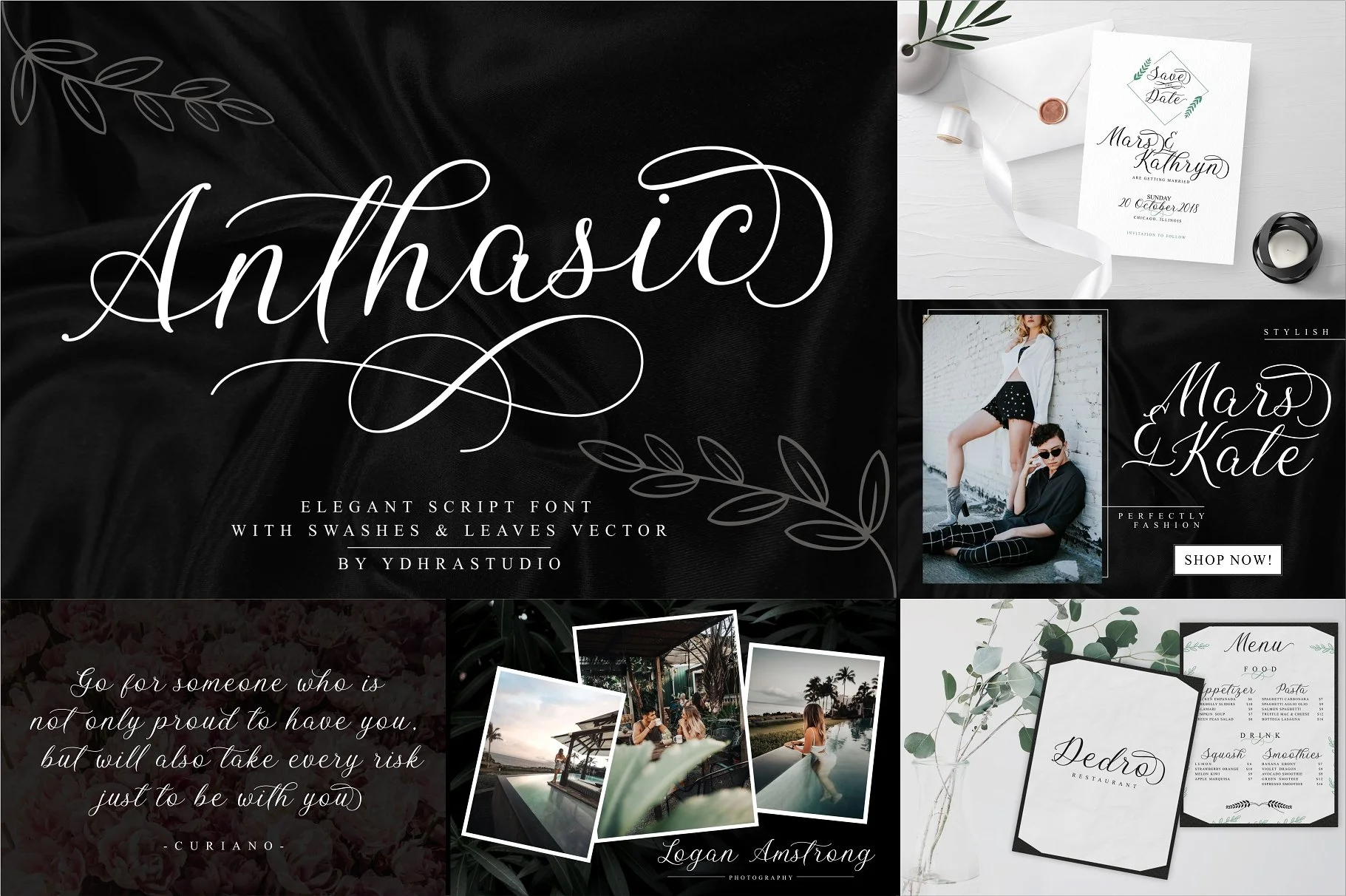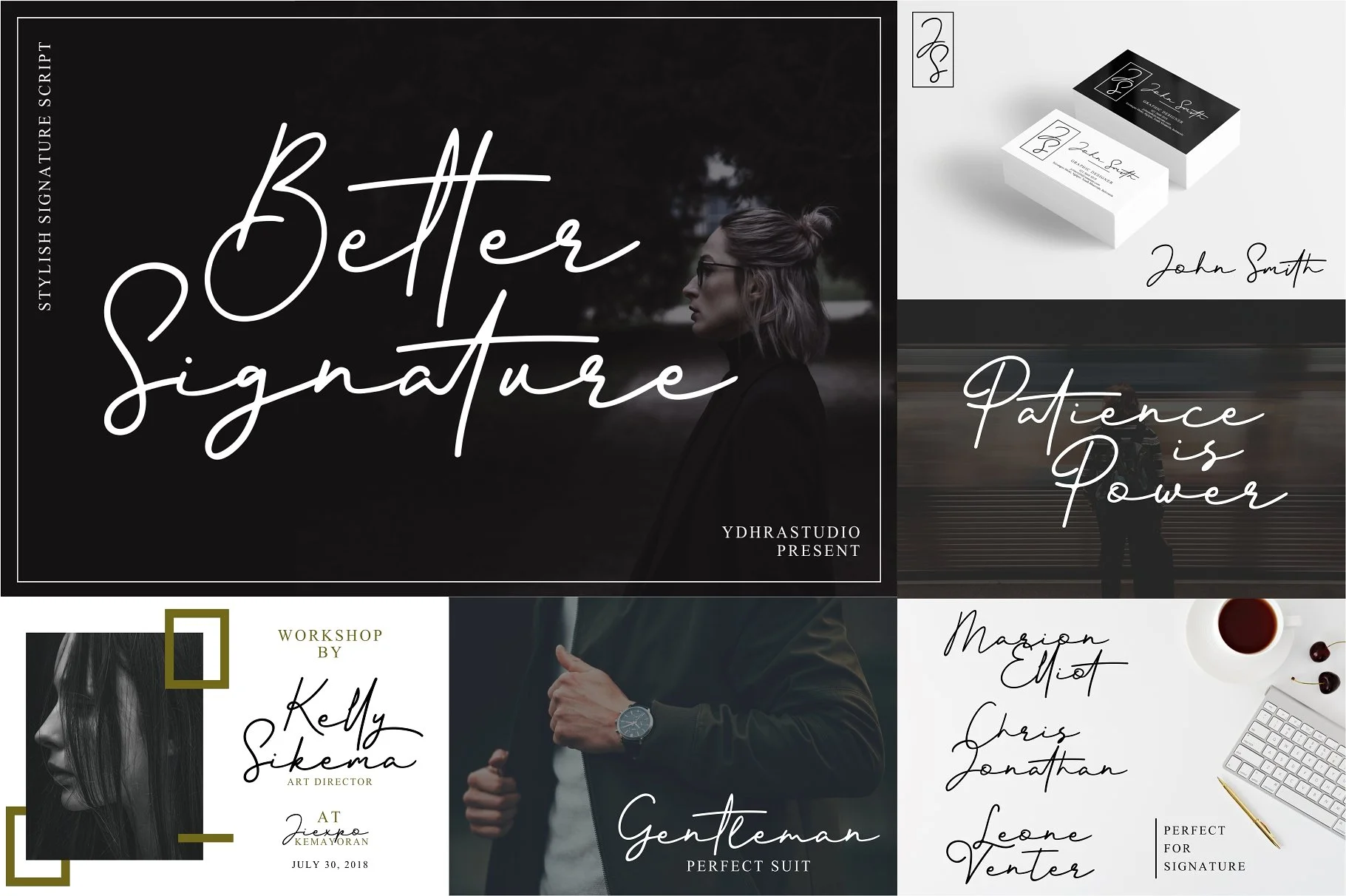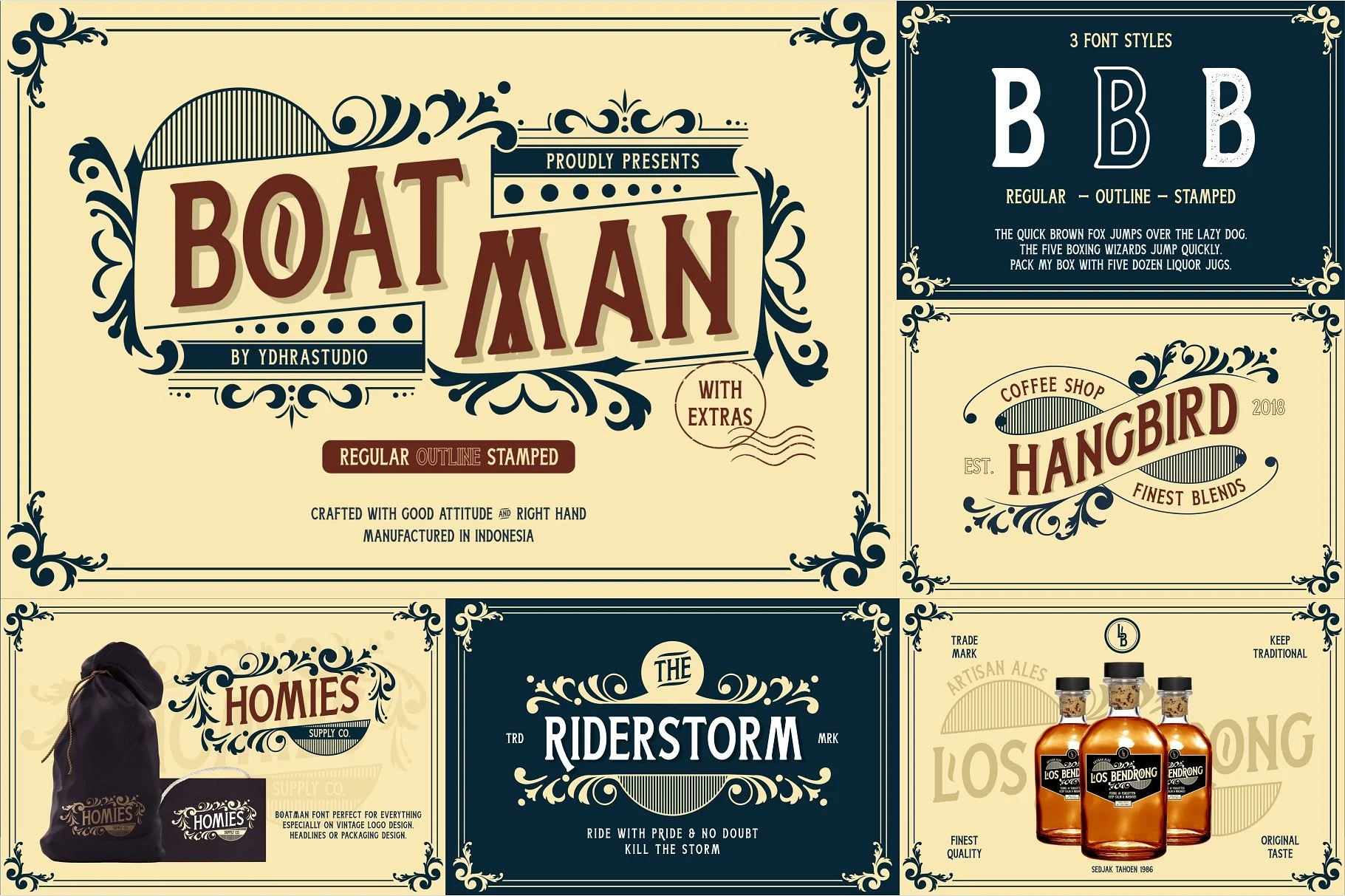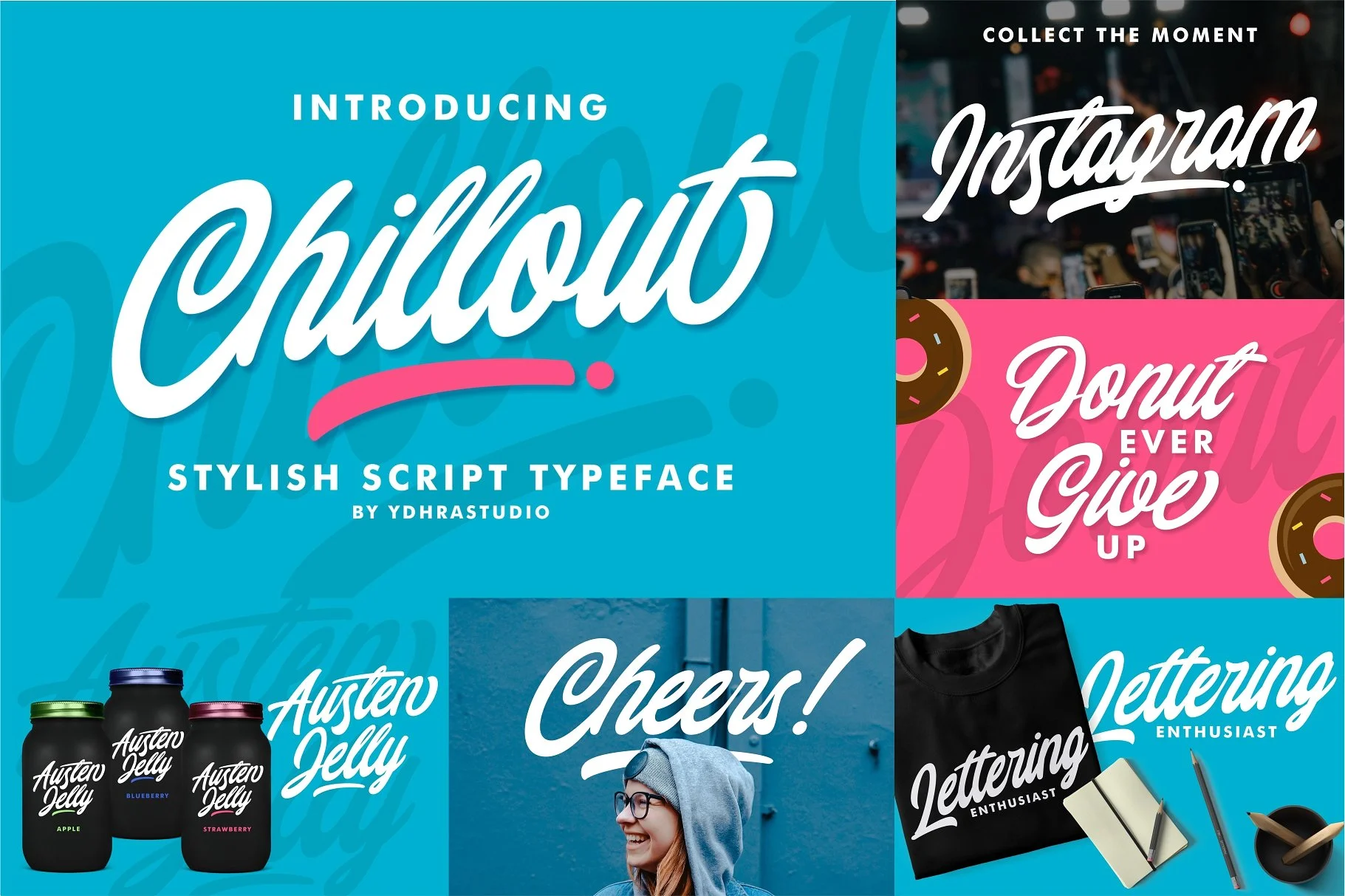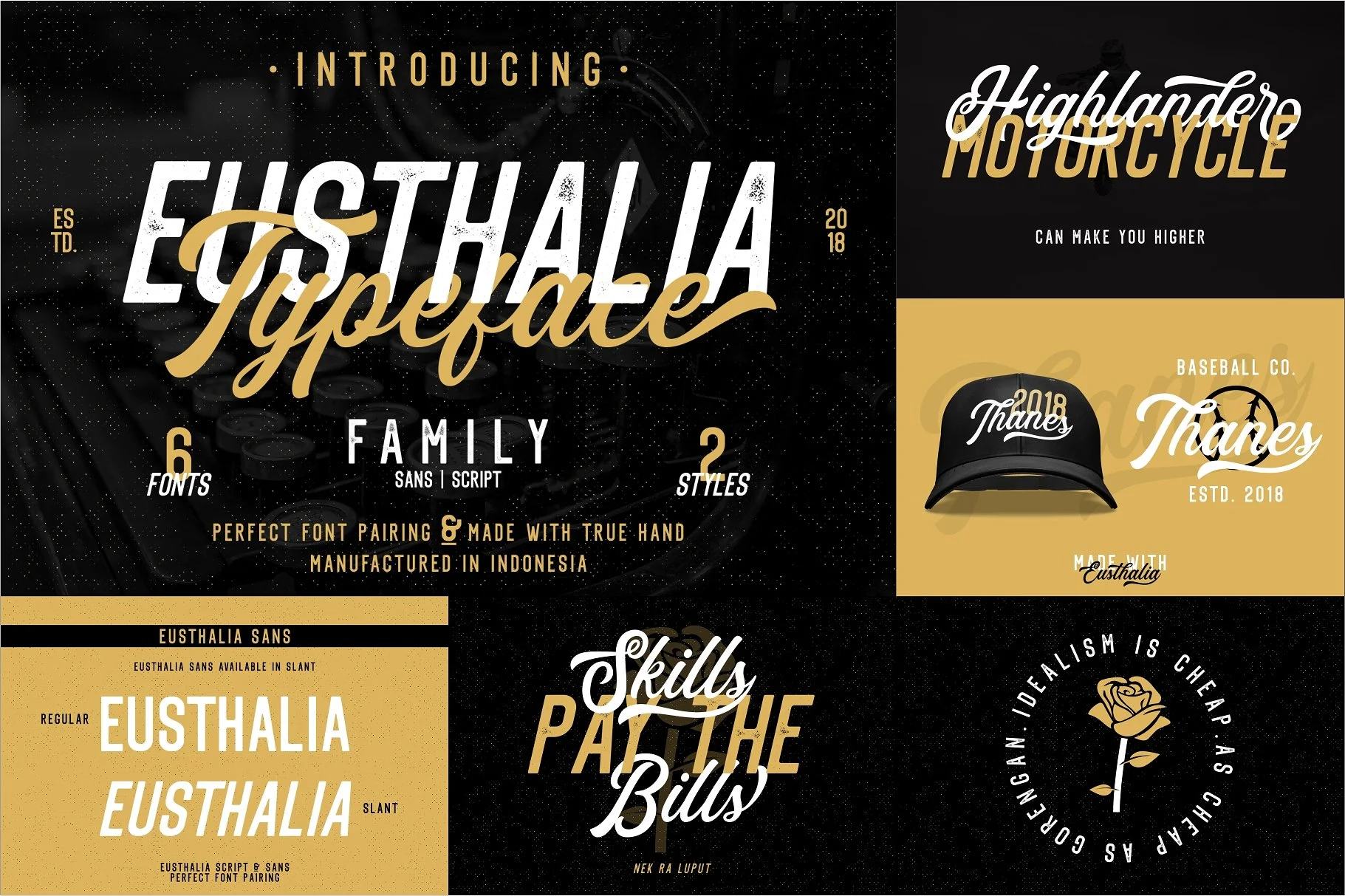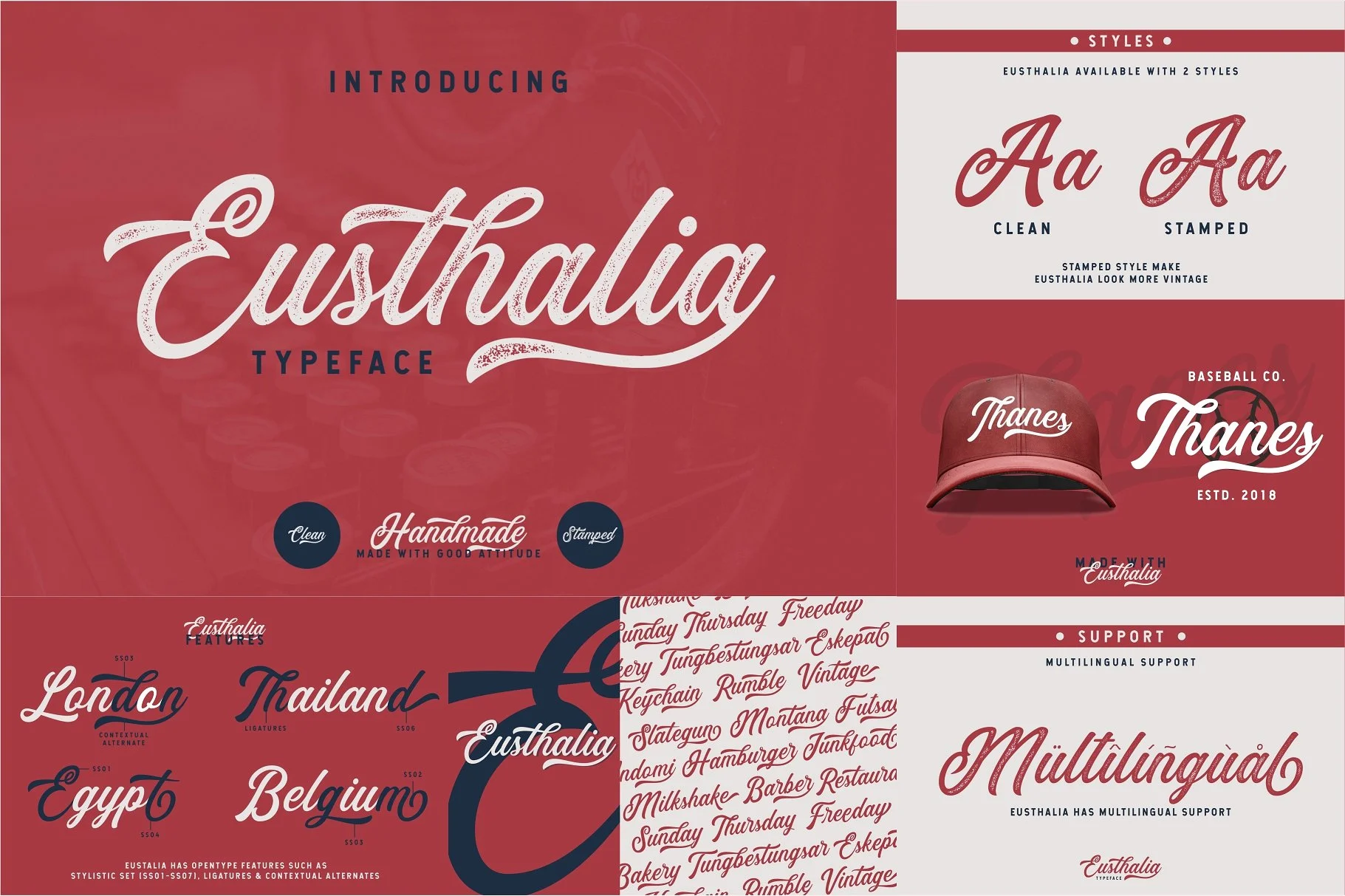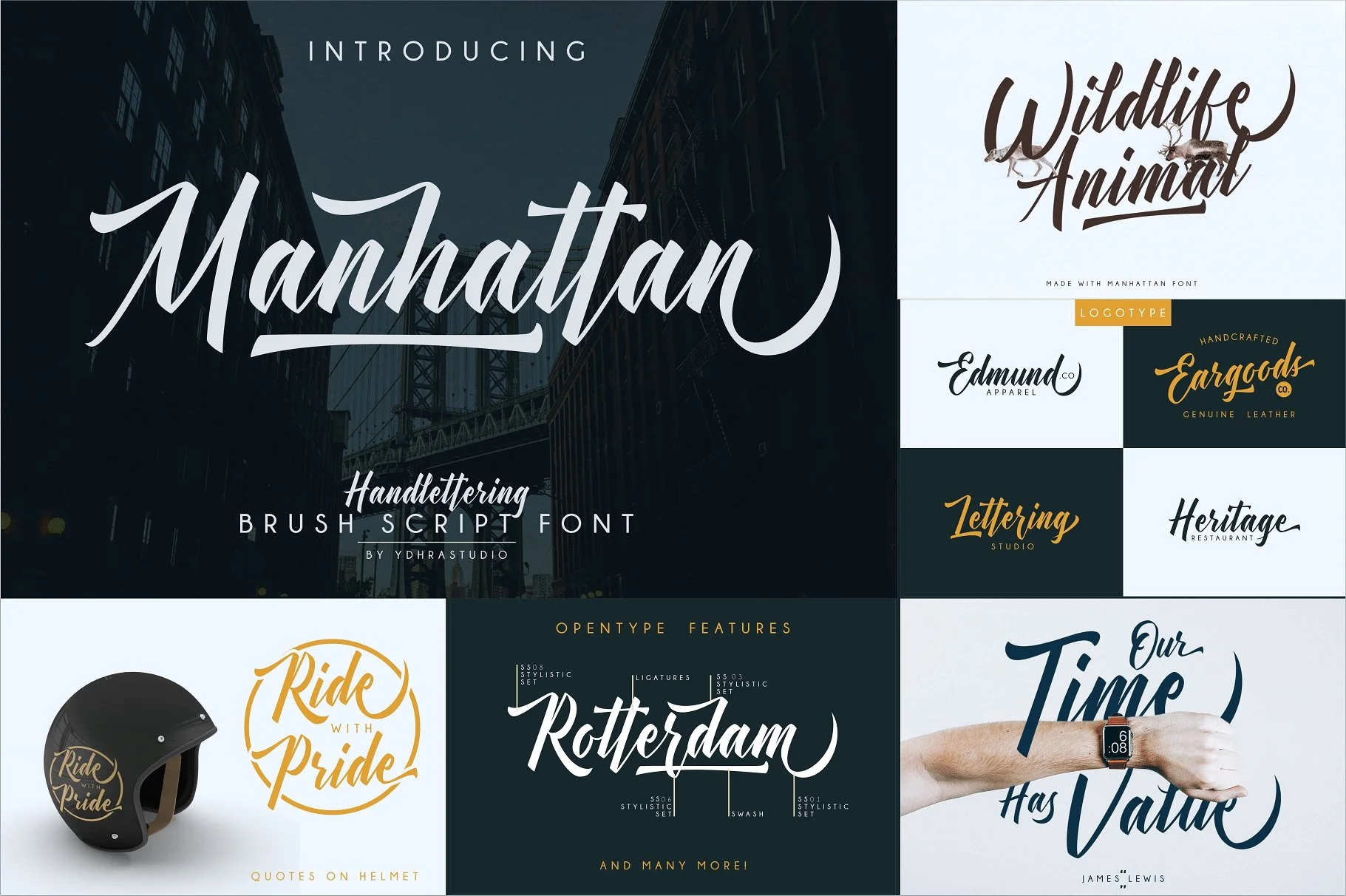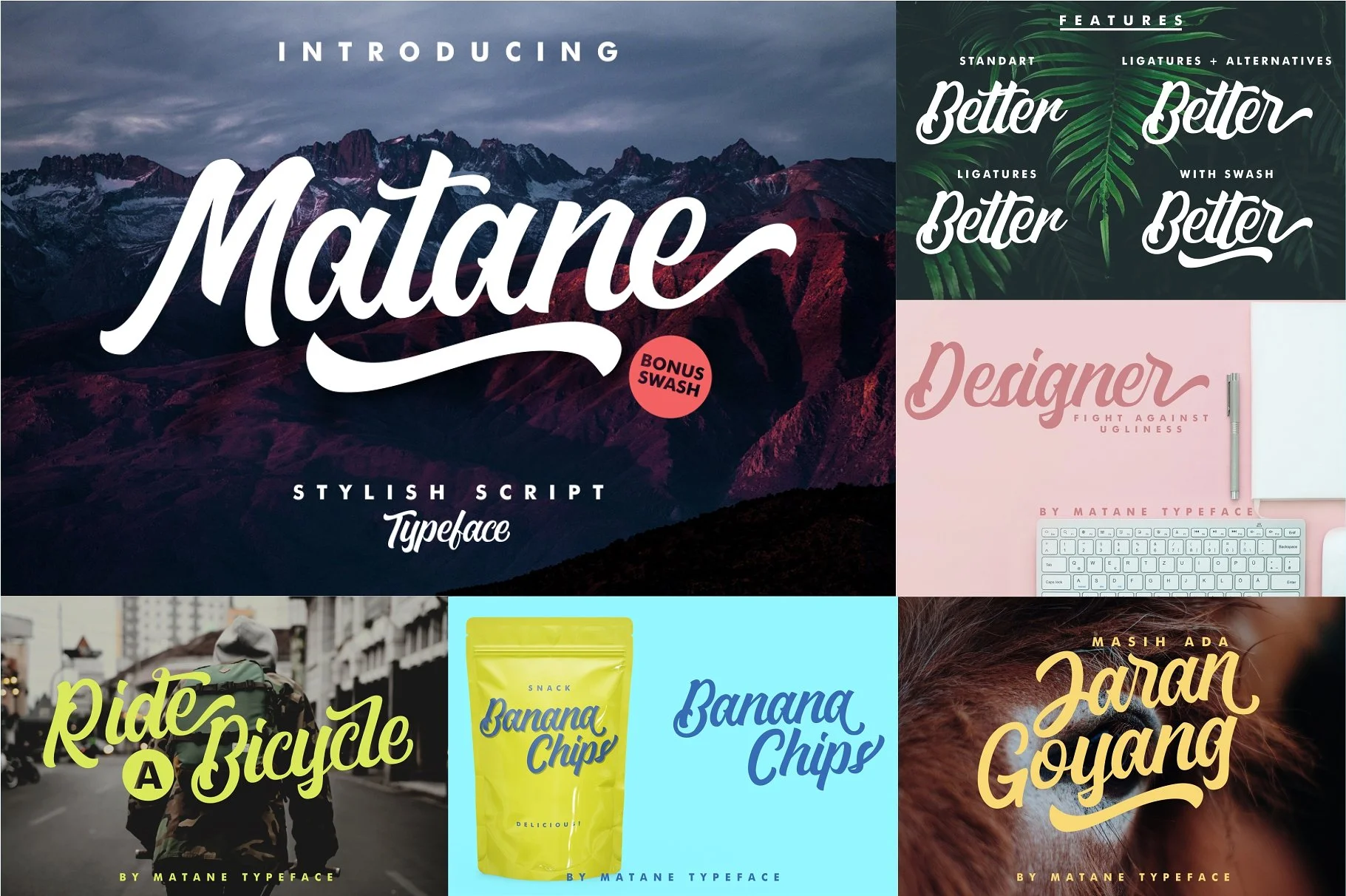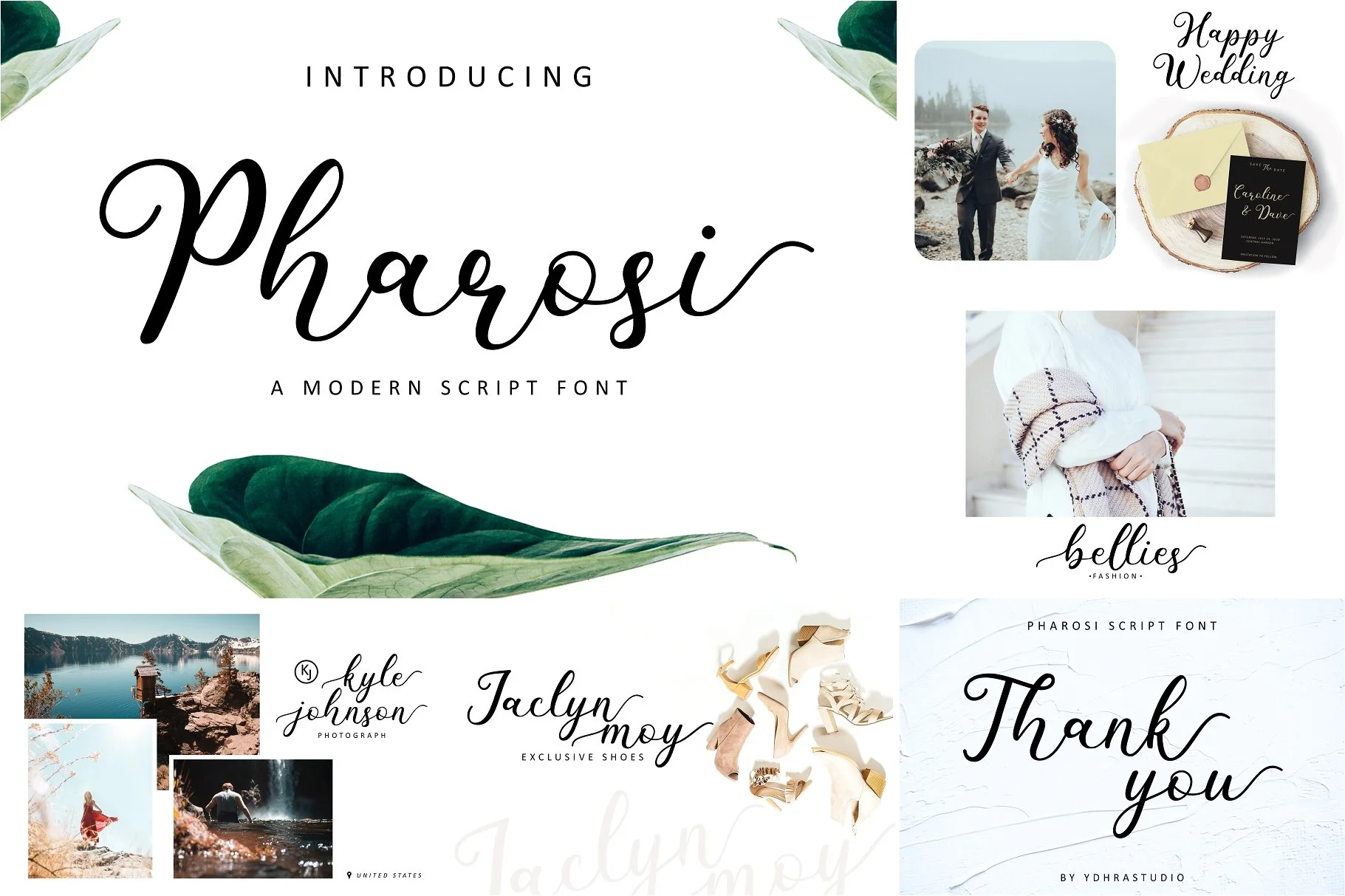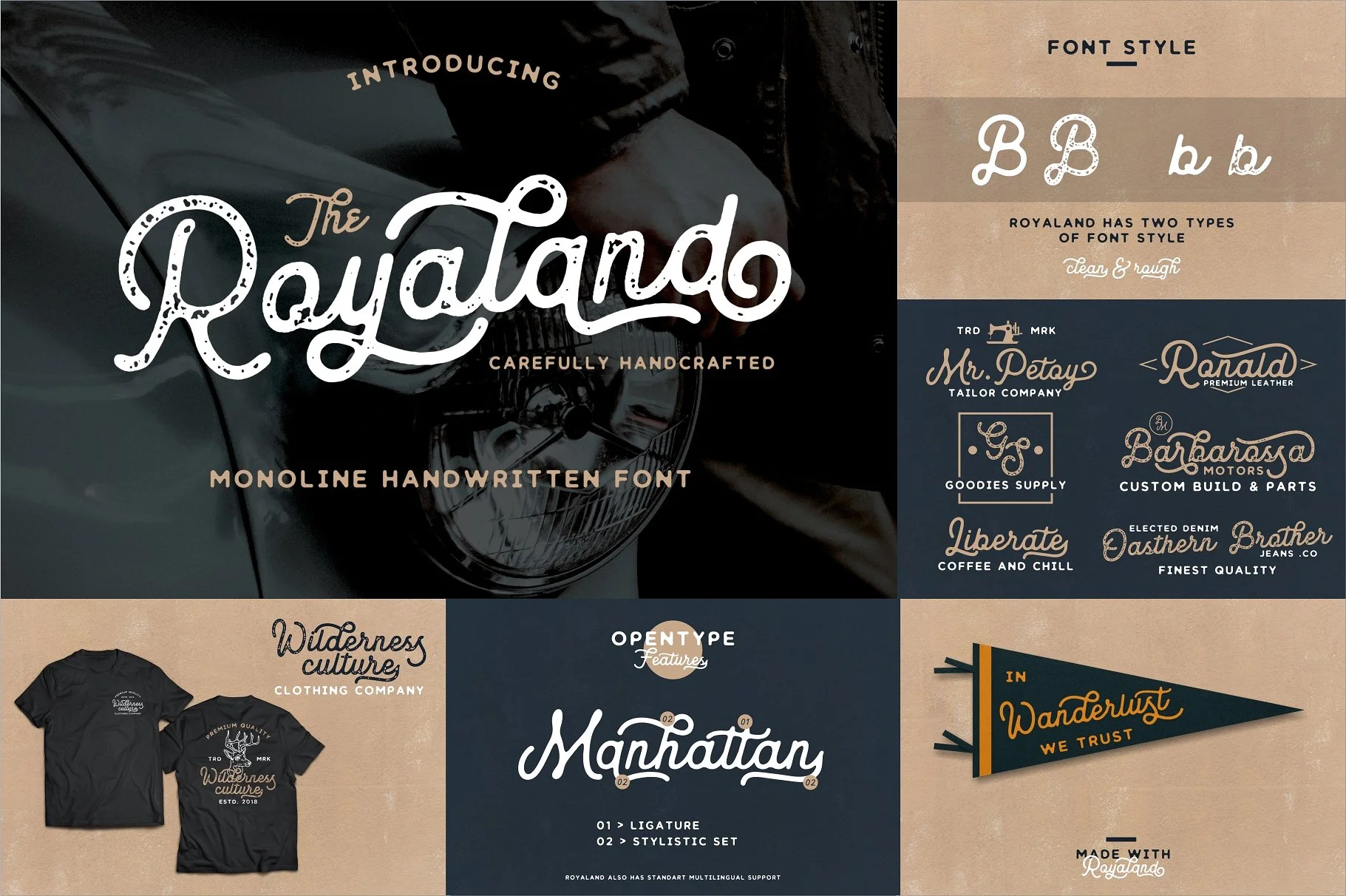
Spectacular Bundle (20 Fonts + Bonus)
The Spectacular Bundle (20 s + Bonus) is a vintage-inspired typeface crafted for designers who demand both versatility and character. Whether you are working on a personal project or a high-profile commercial brief, this font delivers distinctive personality that sets designs apart from the crowd.
This Spectacular Bundle (20 s + Bonus) is an excellent choice for poster creation, steampunk projects, product labels, social media graphics, heritage brand identities. Its carefully considered design makes it equally effective for print and digital media, ensuring your message lands with impact regardless of the medium.
What distinguishes Spectacular Bundle (20 s + Bonus) is its versatile design that adapts to diverse creative contexts. The typeface was developed with the modern designer in mind, balancing aesthetic appeal with functional performance across a wide range of creative applications including barbershop designs, retro branding, advertising campaigns.
The Spectacular Bundle (20 s + Bonus) family ships with light, regular, medium, bold, and black variations, giving you full control over typographic hierarchy. Every weight has been individually optimised to maintain consistent stroke contrast and spatial harmony throughout the entire family.
Marketing teams and brand managers consistently choose Spectacular Bundle (20 s + Bonus) when projects demand authentic typographic character and reliable performance. The font's distinctive design language immediately elevates brand communications and creative compositions, making it a valuable addition to any professional typeface library.
Technical precision is at the heart of Spectacular Bundle (20 s + Bonus) . The letterforms have been drawn with meticulous attention to curve quality, optical sizing, and inter-character spacing, resulting in typography that reads effortlessly at display sizes and remains crisp in body copy applications.